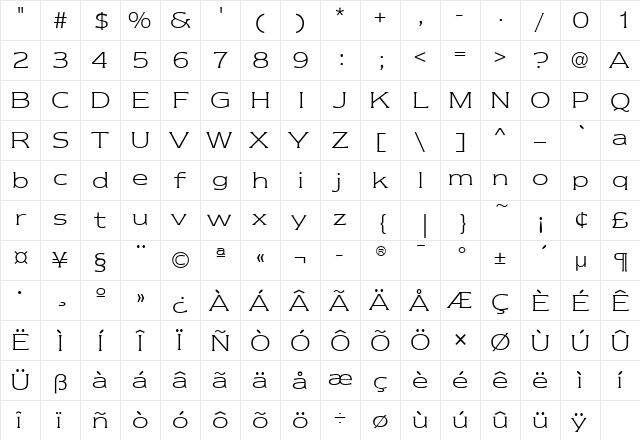
NewtextITC Light Font Preview
NewtextITC Light
NewtextITC Light Font Details
Design Context for NewtextITC Typeface
NewtextITC is a composed and adaptable typeface that performs quietly and consistently across a wide range of design contexts. Its slender proportions lend an understated elegance to any composition.